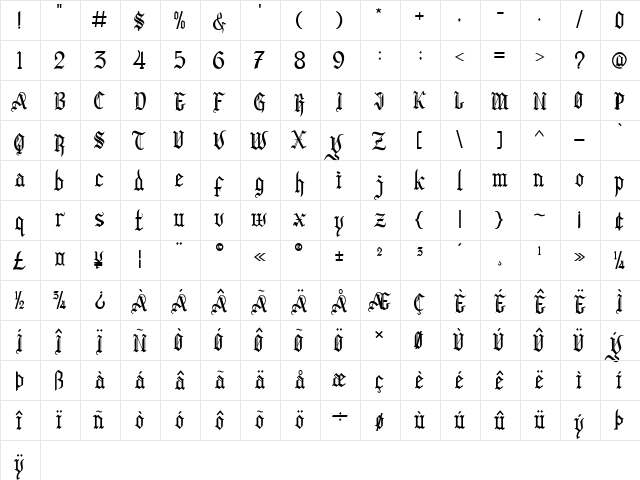
Black Clover Font Regular
| Foundry | Lhotive Studio |
| Designer | Fuady & Aldy |
Design Context for Black Clover Font Typeface
Black Clover Font is a composed and adaptable typeface that performs quietly and consistently across a wide range of design contexts.